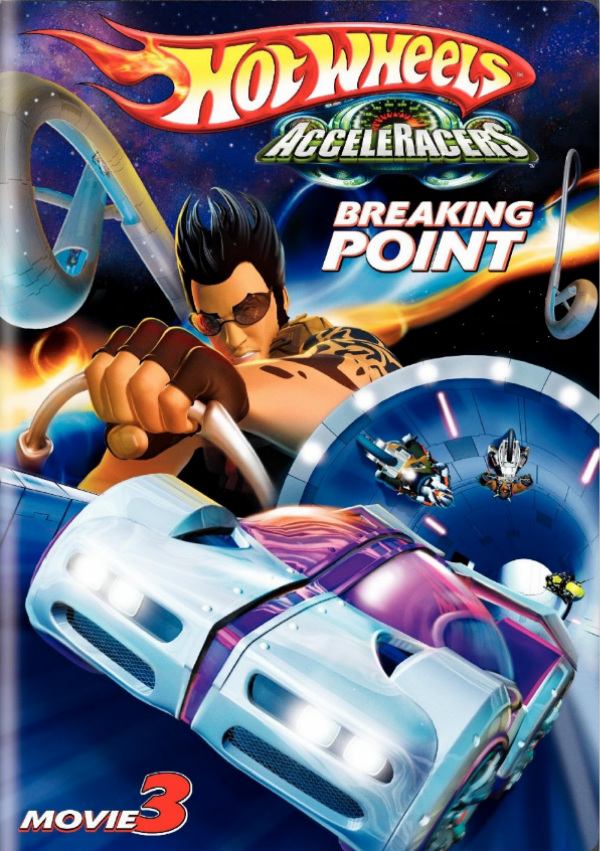
Hot Wheels AcceleRacers Font
AnimationHot Wheels AcceleRacers is a 2005 computer-animated series by Canadian company Mainframe Entertainment. The series follows a group of racers who compete in the Racing Realms, using futuristic vehicles and confront obstacles in their quest to become the ultimate champions.
The Hot Wheels: AcceleRacers – Breaking Point, the third film in the series poster as shown above features three fonts. The “Hot Wheels” part is probably Heavy Heap designed by Typodermic Fonts, the “AcceleRacers” part is similar to Impact by Geoffrey Lee, and the subtitle “Breaking Point” is written in Delta Bold Italic by Gustav Jaeger.